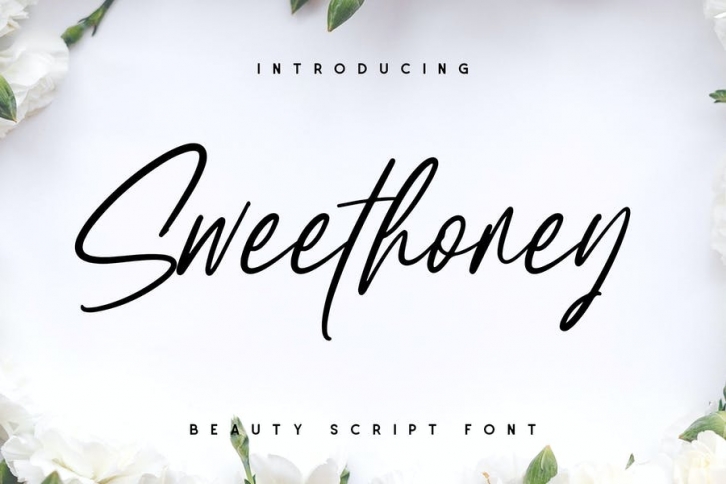
Are you looking for a simple and elegant handwriting font? We can help! Try to download our Sweethoney font. The font is suitable to use for casual purpose. Try to use it on Wedding invitation, photography, branding and signature to see the best of it :)